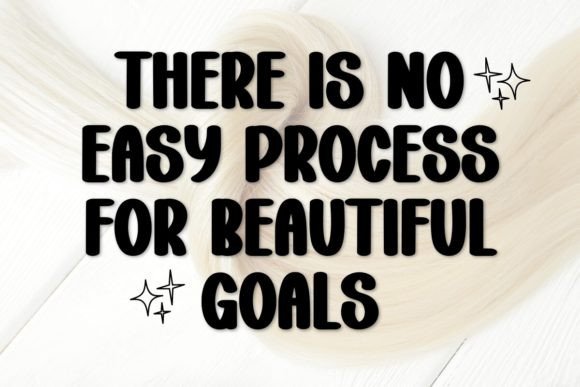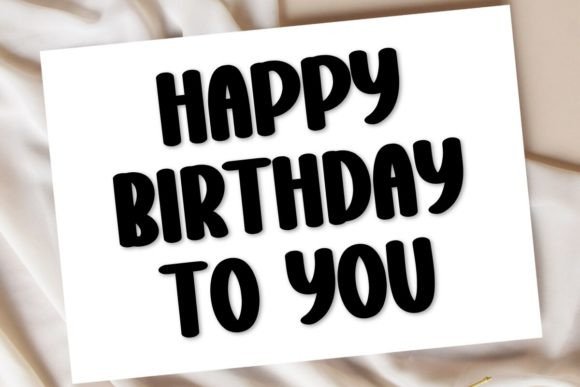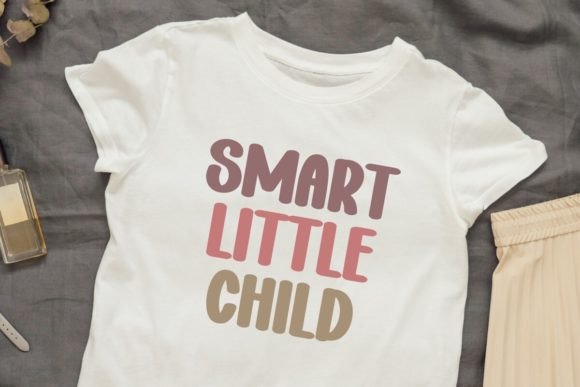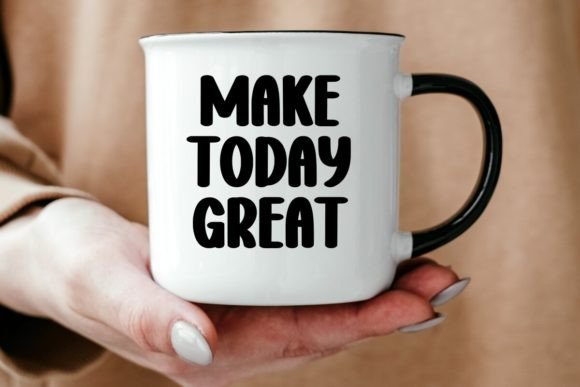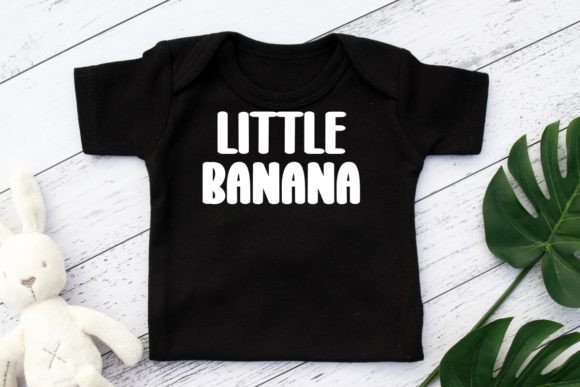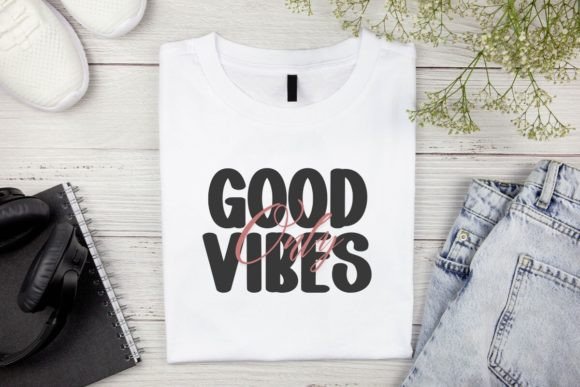
Introduction to Simple Thinking Font
Have you ever stared at a blank canvas, waiting for inspiration to strike? That’s exactly where I was when I stumbled upon the Simple Thinking Font. Its modern and bold design instantly caught my eye, and I knew I had to dive in and explore its possibilities.
As a designer, I’m always on the lookout for the perfect design resource to elevate my creative projects. The Simple Thinking Font is more than just a pretty face; it’s a versatile tool that can breathe life into your quotes, add a touch of youthful spirit to children’s designs, and make your trendsetting t-shirts stand out from the crowd. With its high-quality design and transparent background, this font is a valuable addition to any designer’s toolkit.
Today, we’ll take a closer look at the Simple Thinking Font, and I’ll share why I think it’s a must-have for any creative project.
Key Features of Simple Thinking Font
- High-quality, clean design perfect for creative projects requiring a simple yet elegant look.
- Features a clear, legible font with a size range of 12-72 points, suitable for various design elements and text sizes.
- Unique characteristics include its minimalist aesthetic and versatility, making it an excellent choice for a variety of creative projects.
Honest Review: Simple Thinking Font
As a designer, I’m always on the lookout for high-quality design resources to elevate my creative projects. Recently, I came across the Simple Thinking Font, which caught my attention with its sleek and modern aesthetic.
Here’s what I think works well: ✨ The font is incredibly versatile, suitable for a wide range of projects from corporate branding to digital design. The clean lines and minimalistic design make it easy to read and comprehend. The font also includes a transparent background, making it a great option for overlaying text on images.
- Very versatile and suitable for various design applications
- Includes transparent background for easy overlaying
However, there are a few limitations: ⚠️ The font only comes in a limited number of weights, which may not be ideal for projects requiring a wide range of typography. Additionally, the free download is limited to personal use, which may not be suitable for commercial projects.
Overall, I’m impressed with the Simple Thinking Font, and I would definitely recommend it for personal creative projects. While it may have some limitations, its high-quality design and versatility make it a valuable addition to any designer’s toolkit.
Getting the Most Out of Simple Thinking Font
Experiment with different font sizes, colors, and styles to create a unique look that suits your creative project. Use the font in conjunction with other design elements to create a cohesive and professional design.
The Simple Thinking Font is ideal for use in a variety of creative projects, including logos, typography-based artworks, presentations, and reports. Its high quality and versatility make it a valuable design resource for both beginners and experienced designers.